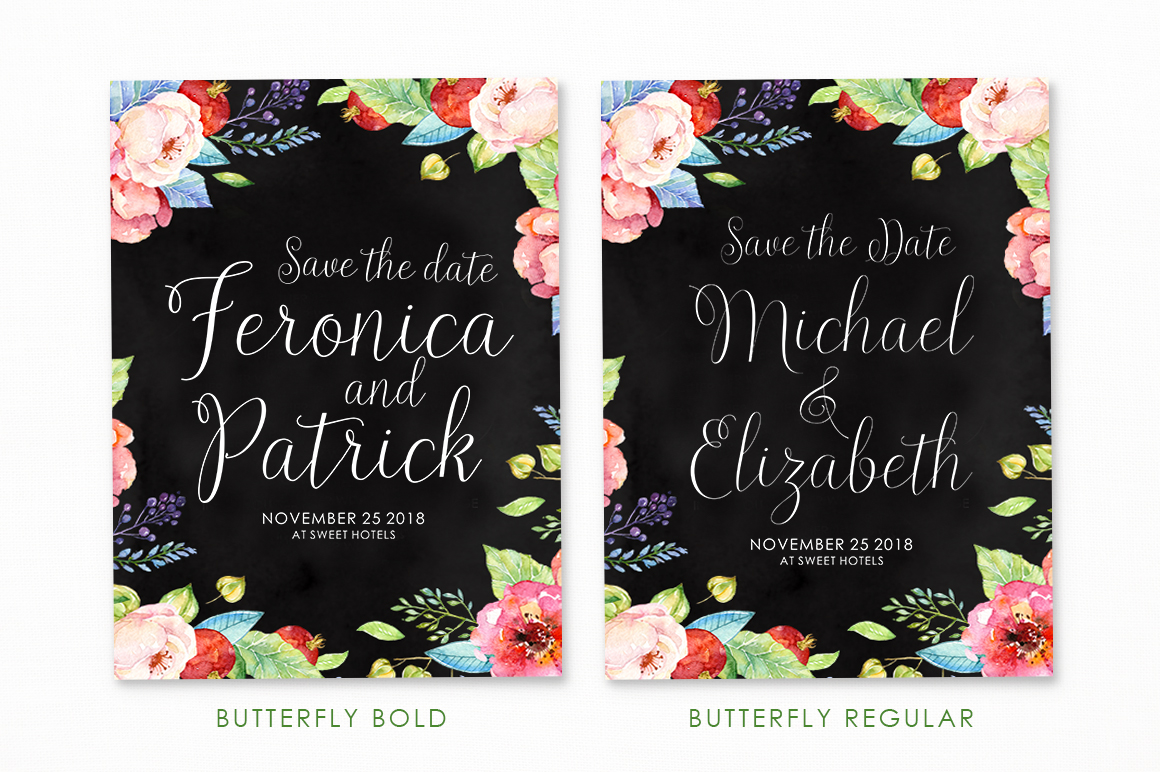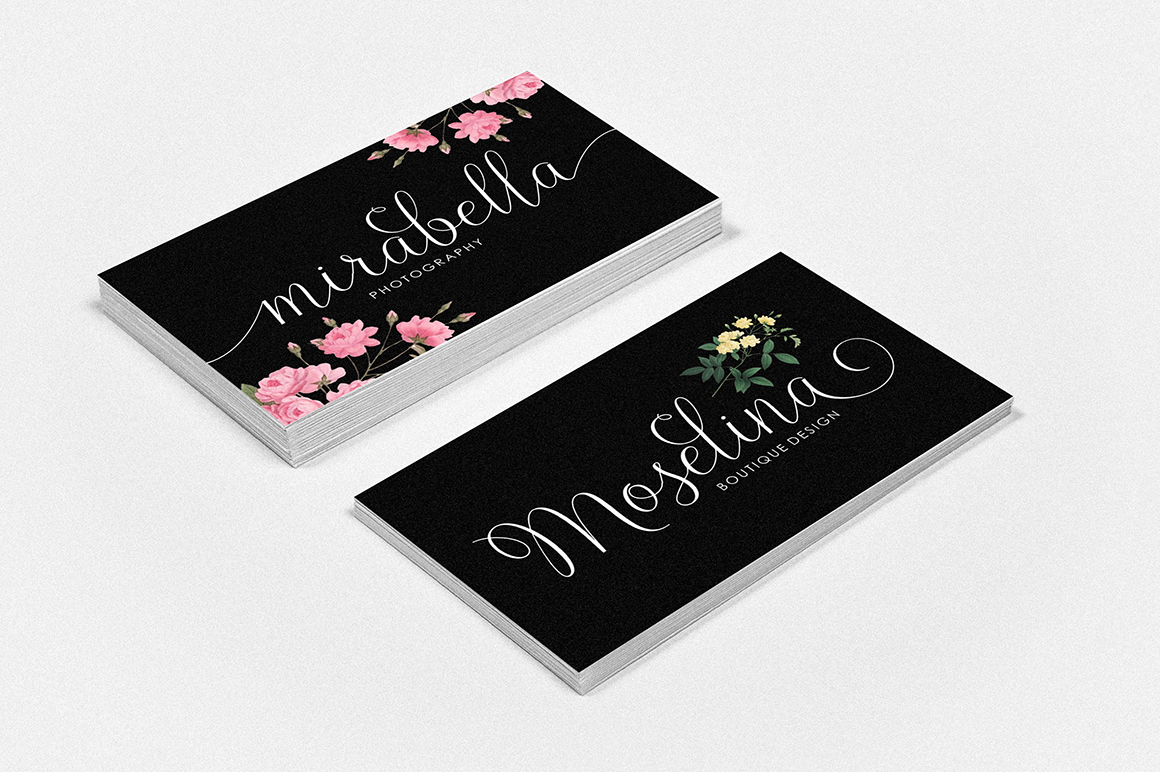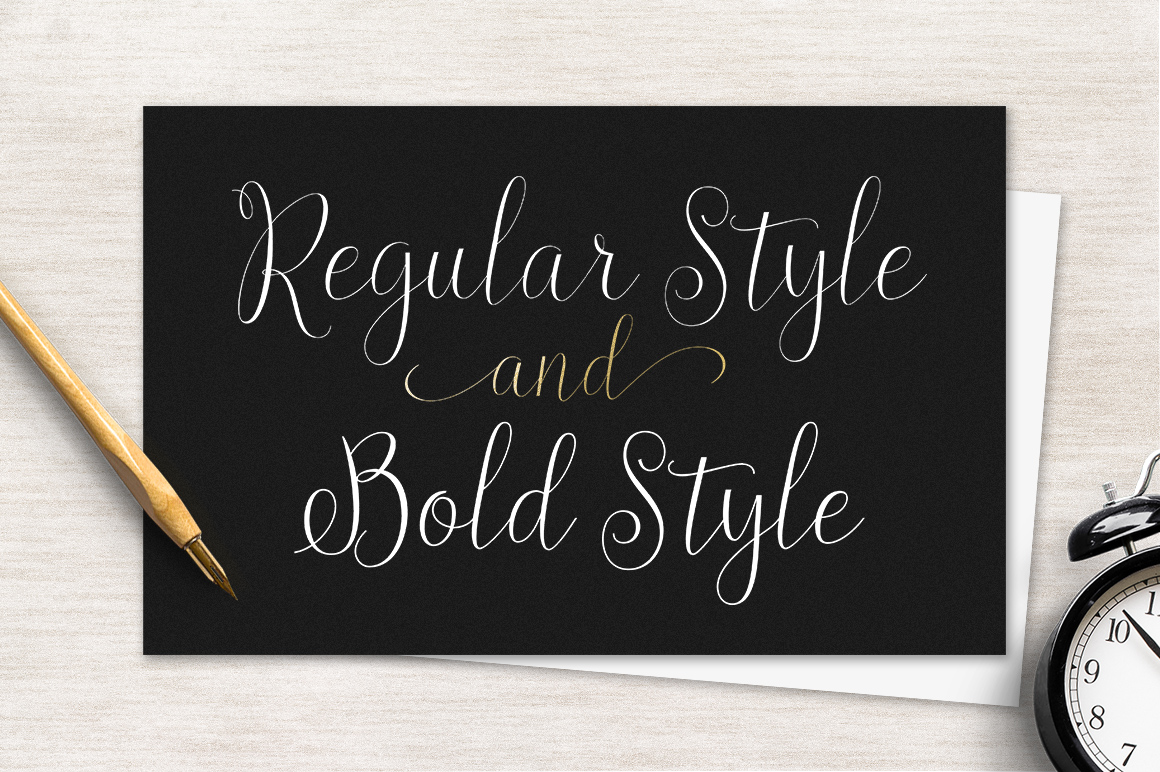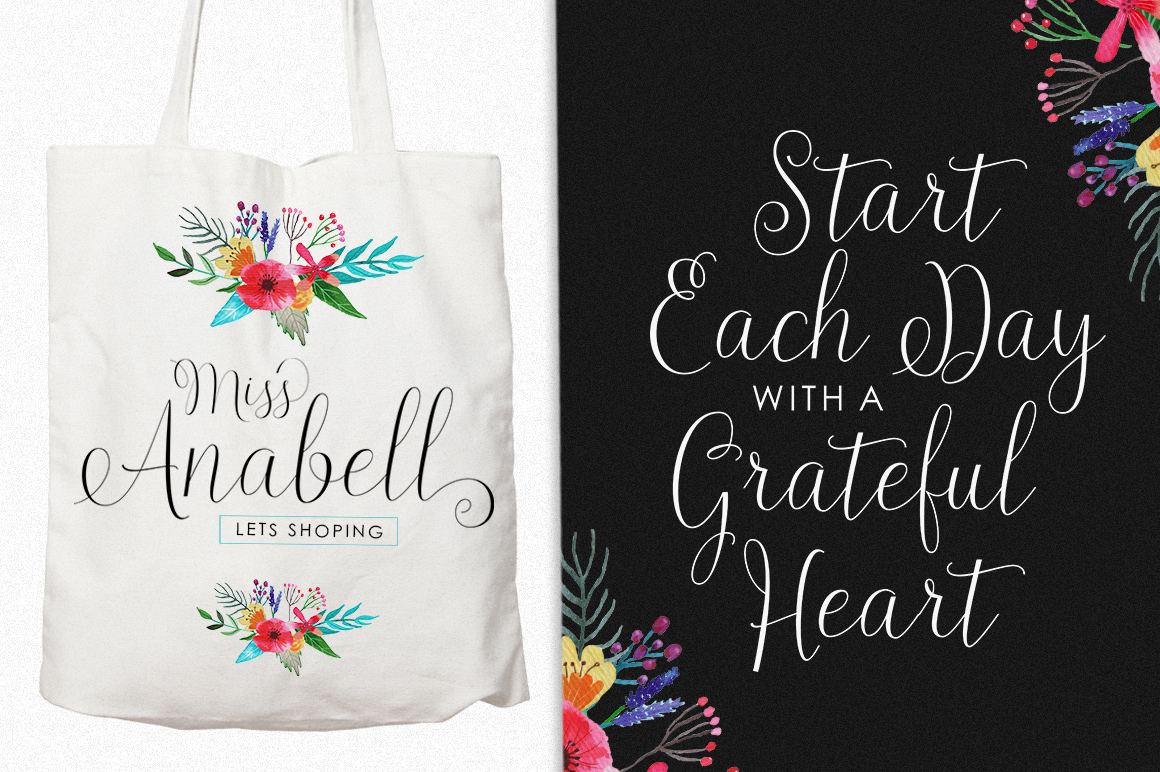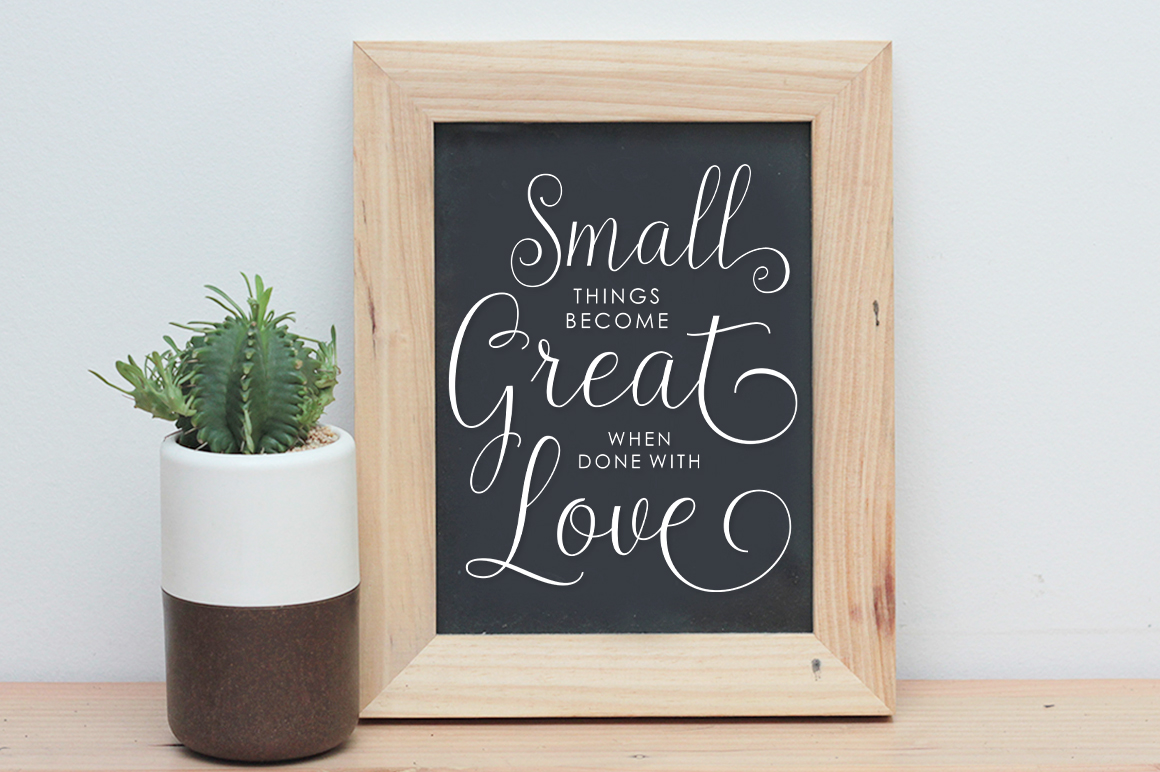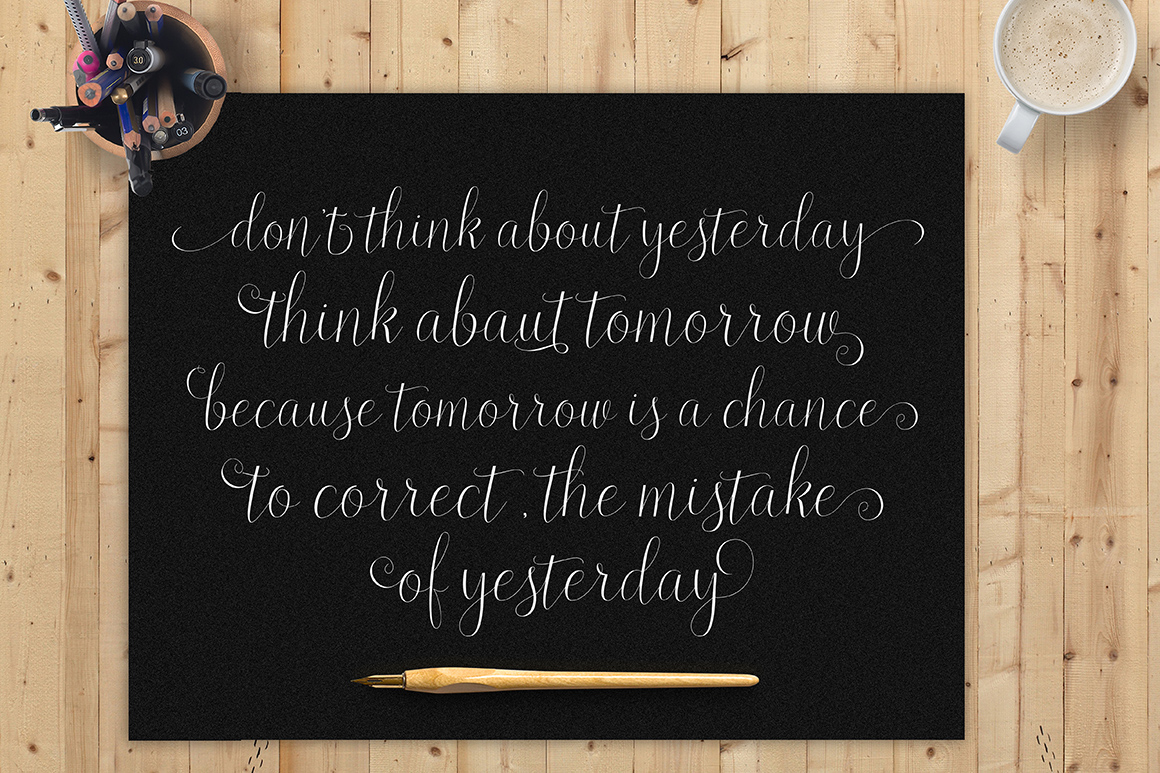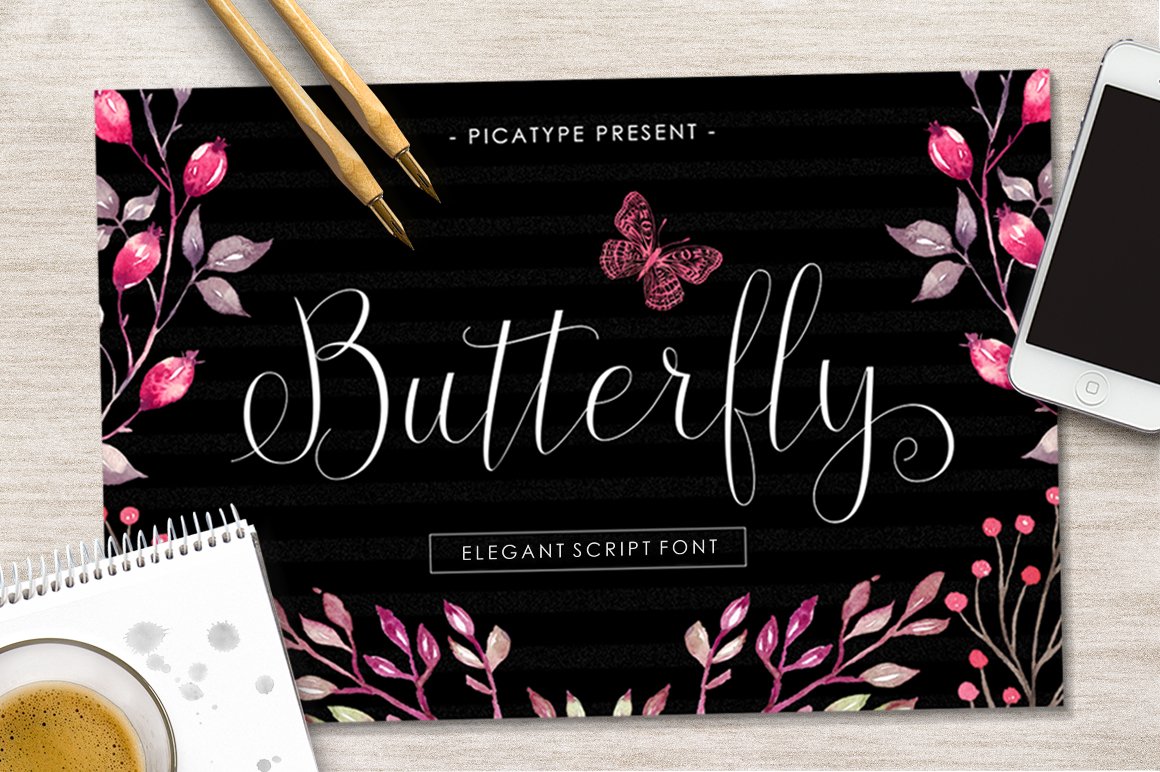
The Creative Spark: Unleashing the Beauty of Butterfly Script Font
There’s something magical about holding a pen to paper, watching the strokes dance across the page as words come to life. It’s a feeling that never gets old, and it’s what draws many of us to the world of calligraphy. For designers, the art of beautiful lettering is a key element in crafting a brand’s visual identity, and that’s where the Butterfly Script Font comes in.
This stunning modern calligraphy design is packed with personality, featuring both a regular and bold version of the script. With its PUA encoded swashes, the Butterfly Script Font is the perfect tool for adding a touch of elegance to any project. Whether you’re a seasoned designer or just starting out, this font is a valuable addition to your toolkit, offering endless possibilities for creativity and self-expression.
Butterfly Script Font Key Features
- Font Style: Script, Handwritten, Elegant, Whimsical, and Creative
- Unique Characteristics: Unique letterforms, fluid connections, and subtle flair, giving it a personal touch
Designer Review: Butterfly Script Font
Overall, I think Butterfly Script Font is a great choice for designers looking for a playful, elegant font. ✨ The flowing lines and delicate curves give it a whimsical feel that’s perfect for titles, quotes, or other design elements where you want to add a touch of femininity.
- ✨ The font’s smooth connections and subtle flourishes make it easy to read, even at small sizes.
- ✨ The font’s versatility means it can be used in a variety of contexts, from wedding invitations to branding and packaging.
- ✨ The font’s playful feel makes it a great choice for designers who want to add a touch of personality to their designs.
- ⚠️ The font may not be suitable for body text, as the spacing can be a bit tight at larger sizes.
- ⚠️ The font may not be as readable in certain fonts sizes and styles, particularly at very small sizes.
- ⚠️ The font may require some adjustments to work well in digital environments, such as on-screen displays.
Overall, I think Butterfly Script Font is a great choice for designers who want to add a touch of elegance and playfulness to their designs. With its smooth connections, delicate curves, and versatility, it’s a great addition to any designer’s toolkit.
The Butterfly Script font is ideal for:
Party and event invitations
Food and beverage branding
Children’s books and educational materials
Any design where a whimsical and elegant script font is desired
To get the most out of the Butterfly Script font, try:
Combining it with bold or italic fonts for contrast
Using it in conjunction with floral or watercolor designs
Experimenting with different
Alternatives to Butterfly Script Font
Carolyna Pro is a modern, elegant script font perfect for fashion, beauty, and lifestyle brands. It features a mix of flowing lines and delicate flourishes, making it ideal for titles, headings, and logos. Compared to Butterfly Script Font, Carolyna Pro has a more refined and sophisticated feel, suitable for high-end brands.
Great Vibes is a beautiful, handwritten script font ideal for creative projects, such as invitations, posters, and social media graphics. It features a more casual, relaxed feel, making it perfect for brands that want to convey a friendly and approachable tone. Compared to Butterfly Script Font, Great Vibes has a more playful and expressive feel, suitable for brands that want to stand out.
Q: Is Butterfly Script available in different weights and styles?
Yes, Butterfly Script is available in various weights and styles, including regular, bold, and italic. These weights and styles can be used to add visual interest and hierarchy to your designs. However, be cautious not to overuse the different weights and styles, as this can make your design appear cluttered or inconsistent.